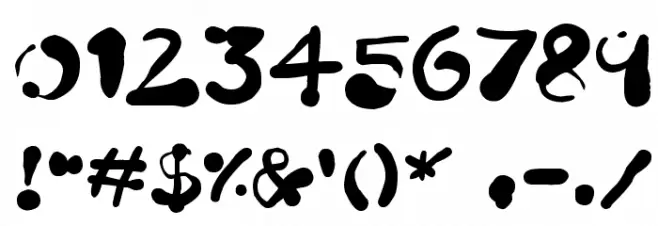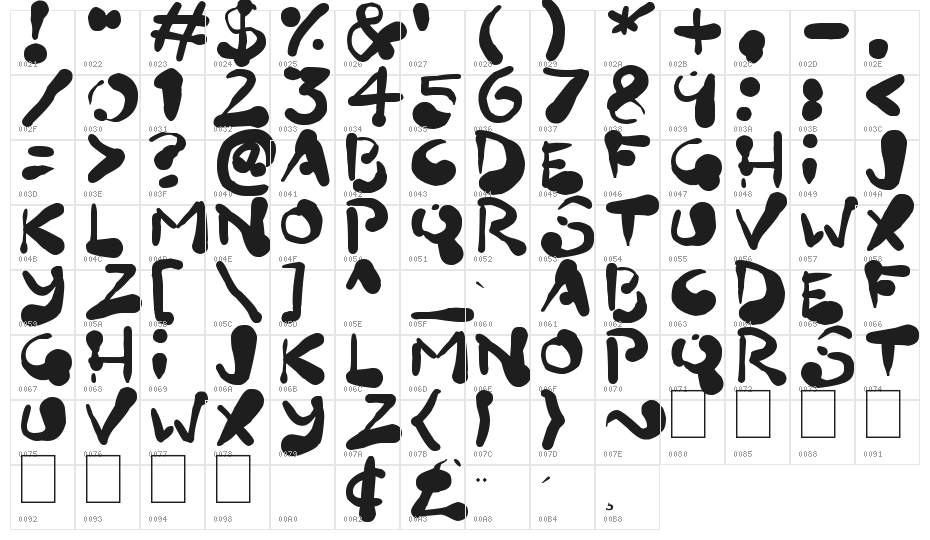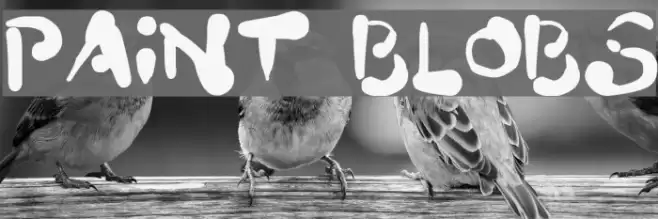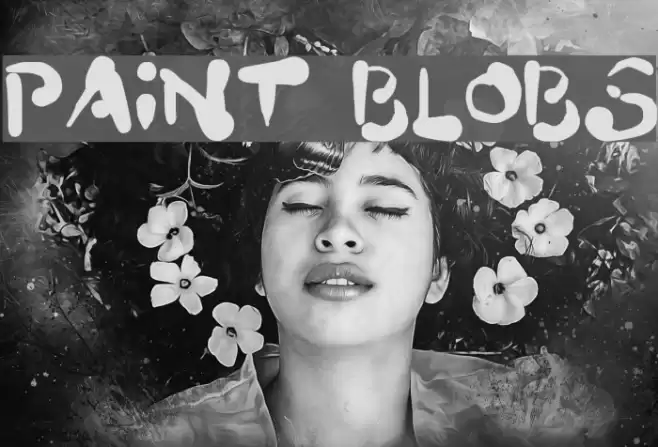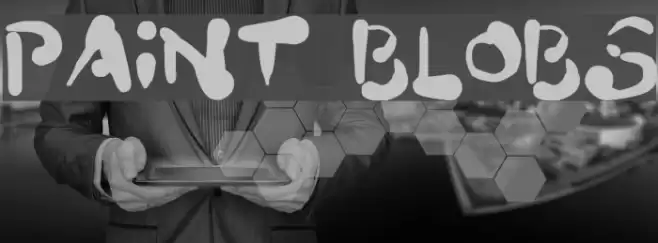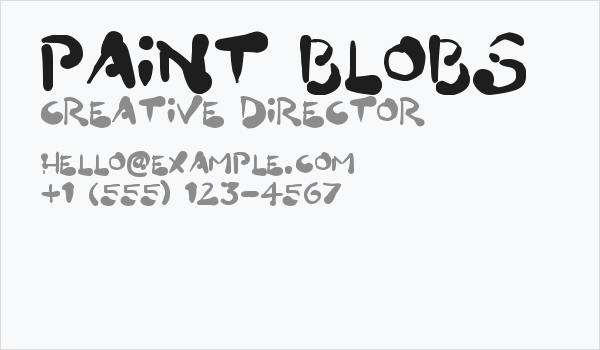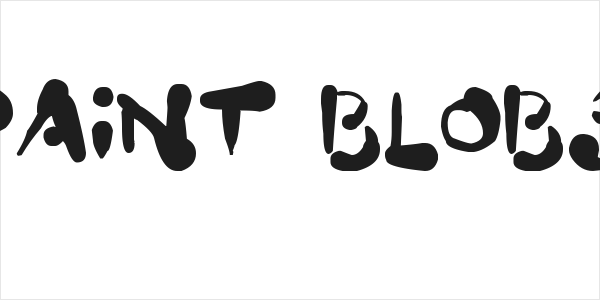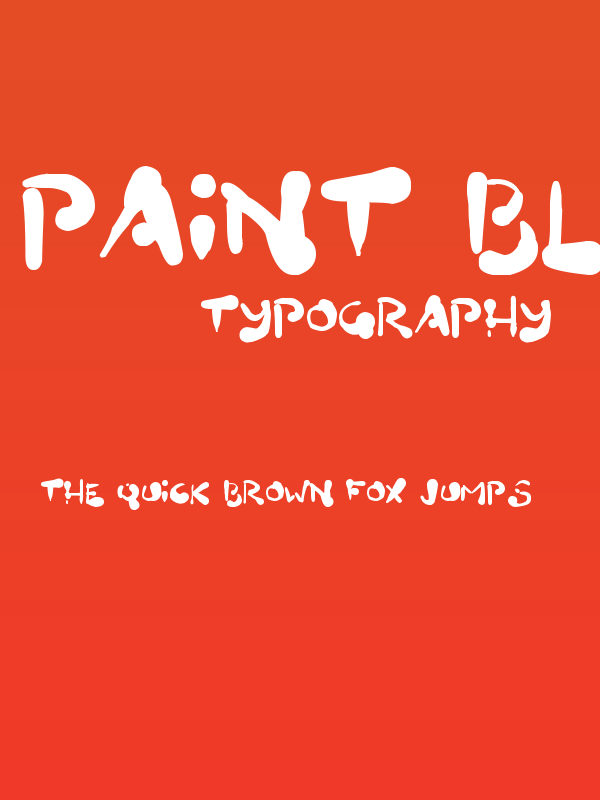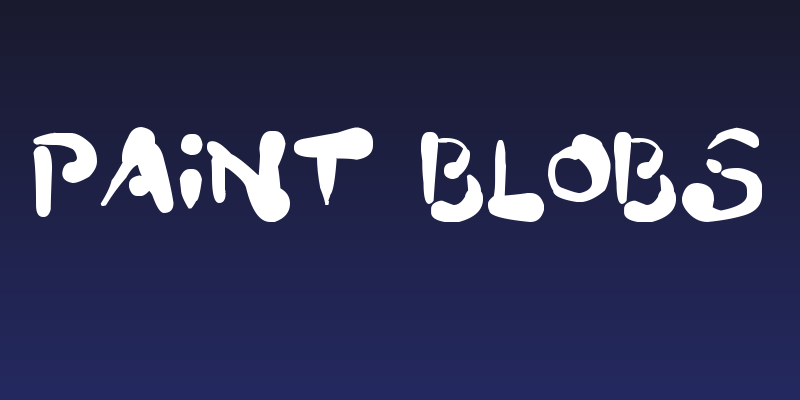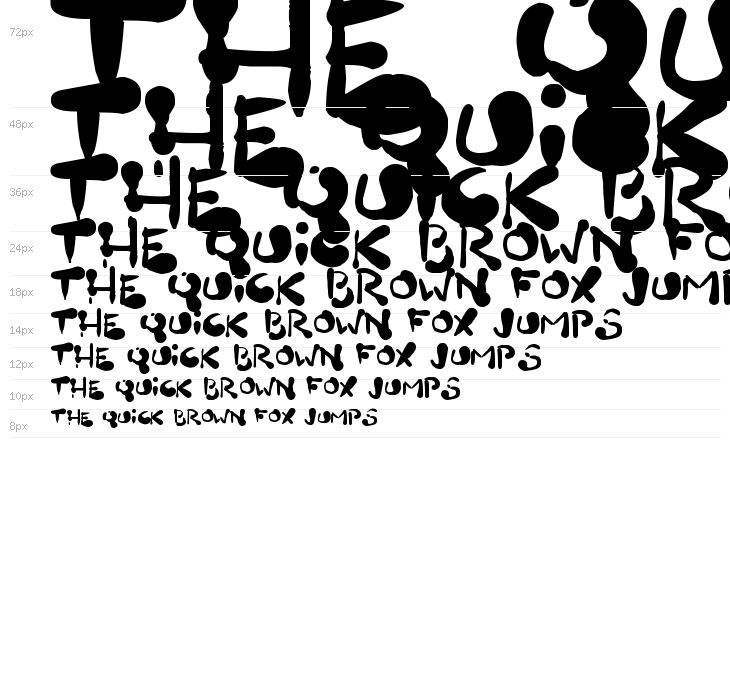
Paint Blobs Font
Paint Blobs Description
This font features a playful and artistic design, reminiscent of paint splatters or ink blots. The characters are bold and irregular, with varying thicknesses that give a dynamic and fluid appearance. Each letter seems to have been crafted with a brush, resulting in a unique and organic look. The font maintains a sense of cohesion despite its irregularities, making it suitable for creative and unconventional projects. Its boldness ensures high visibility, while the artistic style adds a touch of whimsy and creativity.
| Overall Style | Artistic, Playful |
| Use Case | Logos, Posters, Creative Headlines |
| Proposed Projects | Ideal for art-related projects, children's book covers, playful branding, or any design requiring a creative and artistic touch. |